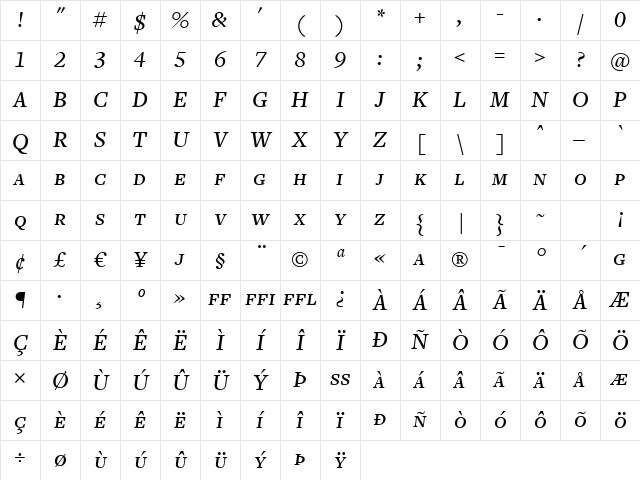
FreightText MediumItalicSC
Style: MediumItalicSC
Foundry: Joshua Darden & Phil's Fonts, Inc
Designer: Joshua Darden
FreightText Family
Complete FreightText MediumItalicSC glyph index. Displaying only characters natively supported by FreightText MediumItalicSC font.
Design Context for FreightText
FreightText is a composed and adaptable typeface that performs quietly and consistently across a wide range of design contexts. The slanted form adds forward momentum and visual energy.